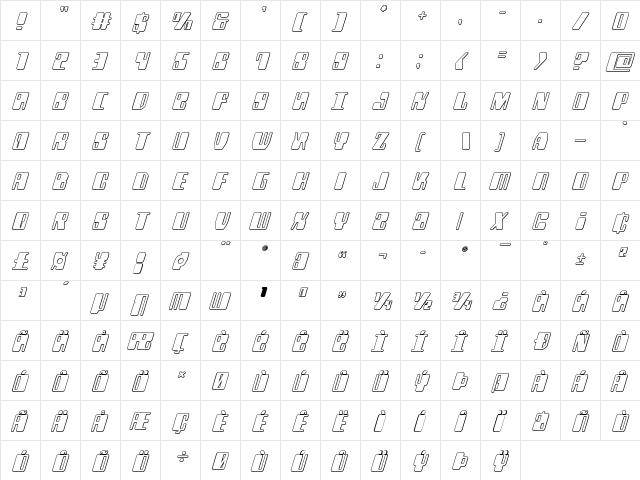
Zyborgs Outline Italic Outline Italic
Design Context for Zyborgs Outline Italic Typeface
Zyborgs Outline Italic is built around its visual character rather than neutral utility — its distinctive forms are designed to make an impression at display sizes. Its italic angle brings a sense of urgency and motion to the letterforms.
Font Pairing: Pair with a clean neutral sans-serif for body copy to let Zyborgs Outline Italic's character lead without overwhelming the composition.
Pro Tip: Treat Zyborgs Outline Italic as the centrepiece of your typographic hierarchy. One strong heading set in a decorative face can carry an entire layout.